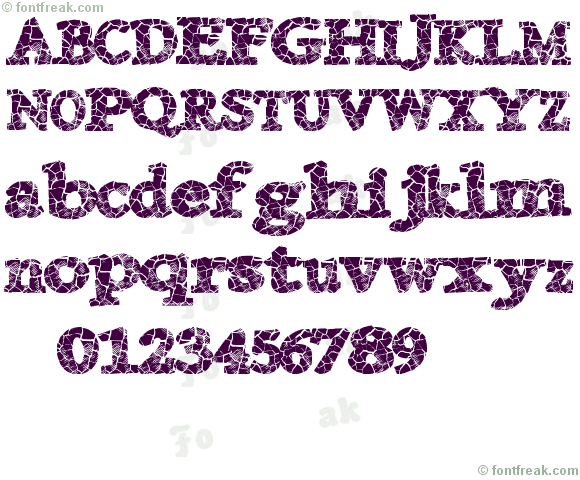
DanishCrack
DanishCrack by XEROGRAPHER FONTS is a striking display font that effortlessly captures attention with its unique style. This typeface features a decorative design characterized by a cracked texture that adds an organic, handcrafted feel to any text. The bold stroke weight combined with varying contrast between the thick and thin lines gives it a dynamic presence, making it ideal for a variety of visual applications. The spacing is thoughtfully balanced, allowing for legibility even in larger formats, while the decorative elements lend an artistic flair that sets it apart from conventional fonts.
This font shines in creative contexts such as wedding invitations, where its charming aesthetics can enhance the romantic vibe. It's also perfect for movie posters, bringing an edgy, artistic touch that draws viewers in. Restaurant menus can benefit from its unique visual style, offering a memorable experience that complements the dining atmosphere. Additionally, DanishCrack works well for branding materials, capturing the essence of small businesses that want to stand out in a crowded market. Graphic designers, small business owners, and content creators will find this font particularly appealing due to its versatility and eye-catching design.